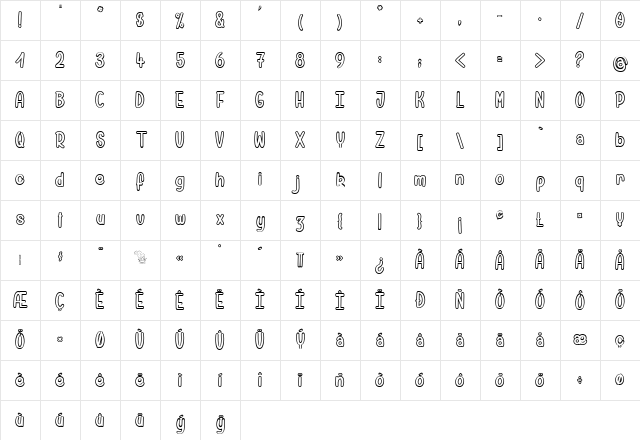
Pamela wants to Ride Regular
Foundry: dcoxy Medina Gregory
Designer: dcoxy Medina Gregory
Design Context for Pamela wants to Ride
Pamela wants to Ride is a composed and adaptable typeface that performs quietly and consistently across a wide range of design contexts.